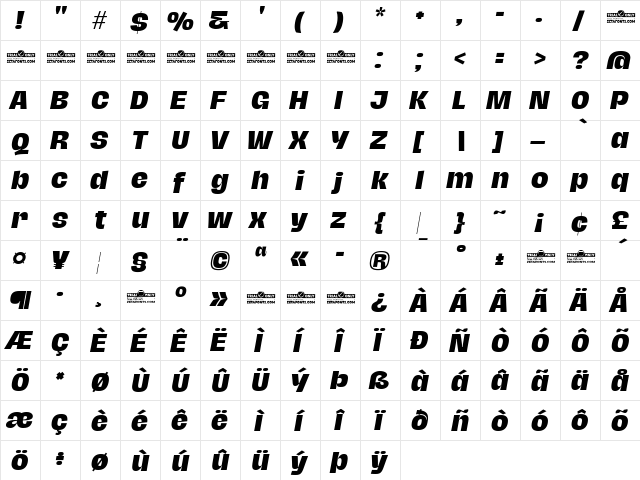
Hagrid Text Trial Extrabold Italic
Design Context for Hagrid Text Trial Typeface
Hagrid Text Trial is a composed and adaptable typeface that performs quietly and consistently across a wide range of design contexts. Its italic angle brings a sense of urgency and motion to the letterforms. Its bold stroke weight gives it real presence on the page.